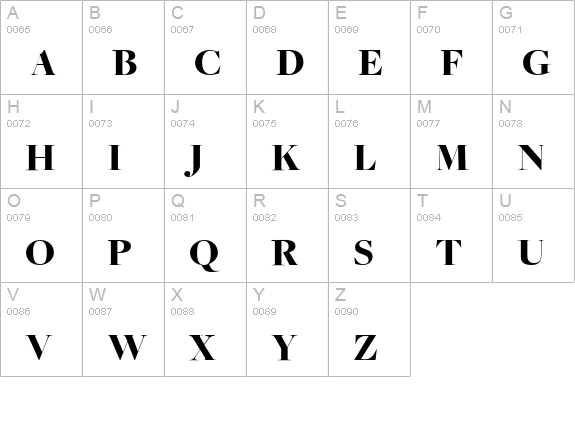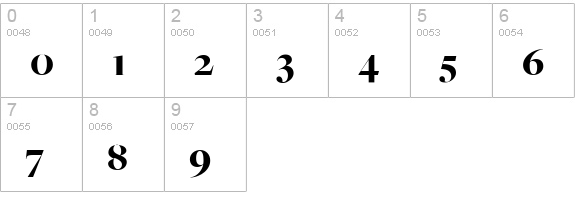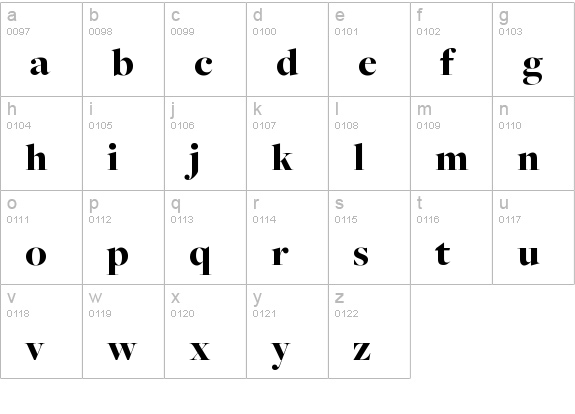
FreightBigBlack Font Details
Introducing FreightBigBlack font, a bold and commanding typeface that exudes strength and power. With its thick, heavy strokes and sleek, modern design, this font is perfect for making a statement and grabbing attention. The FreightBigBlack font is ideal for headlines, logos, posters, and any project that requires a bold and impactful look. What's even better is that FreightBigBlack font is available for free download at FontsMarket.com. Now you can easily add this striking font to your design arsenal without breaking the bank. Don't miss out on the opportunity to enhance your designs with the bold and dynamic FreightBigBlack font today!